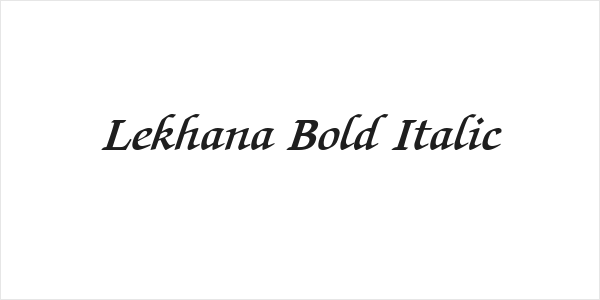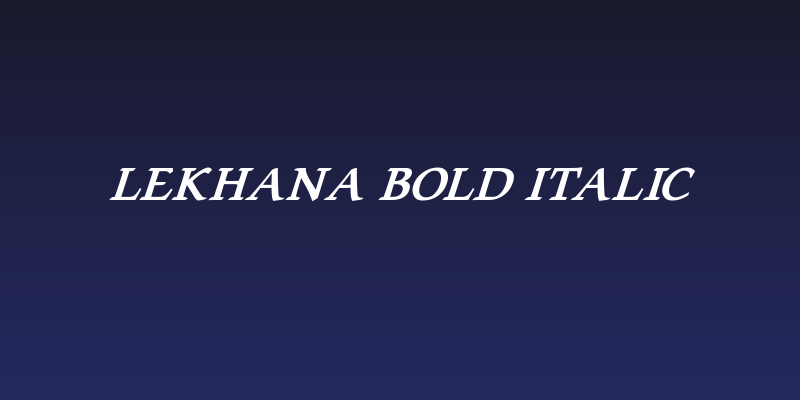
Lekhana Bold Italic Font
Lekhana Bold Italic Description
This font exhibits a bold and italicized style, characterized by its strong and dynamic presence. The letters are slightly slanted, adding a sense of movement and elegance. The strokes are thick and consistent, providing a robust appearance that commands attention. The uppercase and lowercase letters maintain a harmonious balance, while the numerals are clear and easily distinguishable. Special characters are well-integrated, ensuring versatility in various design contexts. Overall, this font combines traditional serif elements with a modern twist, making it suitable for impactful and stylish designs.
| Use Case | Headlines, Logos, Editorial design |
| Proposed Projects | Ideal for branding, editorial design, book covers, and elegant invitations. |